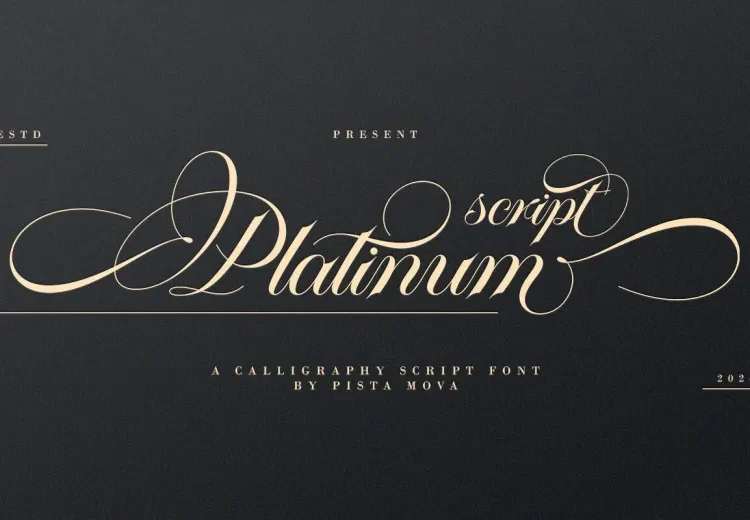
Platinum Font
Platinum is a sophisticated and elegant typeface that exudes a soft, graceful charm, perfect for projects that require a touch of class and refinement. Designed with an easy and relaxed hand, Platinum strikes a harmonious balance between traditional elegance and modern flair, making it an ideal choice for a wide range of applications.
Key Features of Platinum:
• Elegant and Soft Design: Platinum offers a refined, smooth typeface that embodies sophistication. Its soft curves and delicate strokes make it suitable for any design that needs to convey a sense of luxury and elegance.
• Versatility: While Platinum maintains a traditional feel, its modern touches ensure it remains versatile, fitting seamlessly into both classic and contemporary design projects.
• Ideal for Formal Occasions: This typeface is particularly well-suited for formal occasions, including wedding-related media, book covers, greeting card logos, corporate business cards, certificates, and other designs where an elegant, formal appearance is essential.
• Ease of Use: Platinum is designed to be user-friendly, allowing you to quickly and easily incorporate its beautiful script into your designs, filling them with joy and excitement.
Ideal Uses for Platinum:
• Wedding Invitations and Media: Platinum is perfect for creating elegant wedding invitations, save-the-dates, and other wedding-related materials. Its graceful design adds a timeless touch to any celebration.
• Book Covers and Greeting Cards: Use Platinum to design sophisticated book covers or heartfelt greeting cards. Its soft, luxurious style makes every word stand out with elegance.
• Corporate Branding: For businesses looking to convey professionalism and class, Platinum is an excellent choice for logos, business cards, and corporate stationery. Its refined look adds an air of credibility and sophistication to your brand.
• Certificates and Formal Documents: The formal and elegant style of Platinum makes it ideal for designing certificates, diplomas, and other official documents where a sophisticated appearance is required.